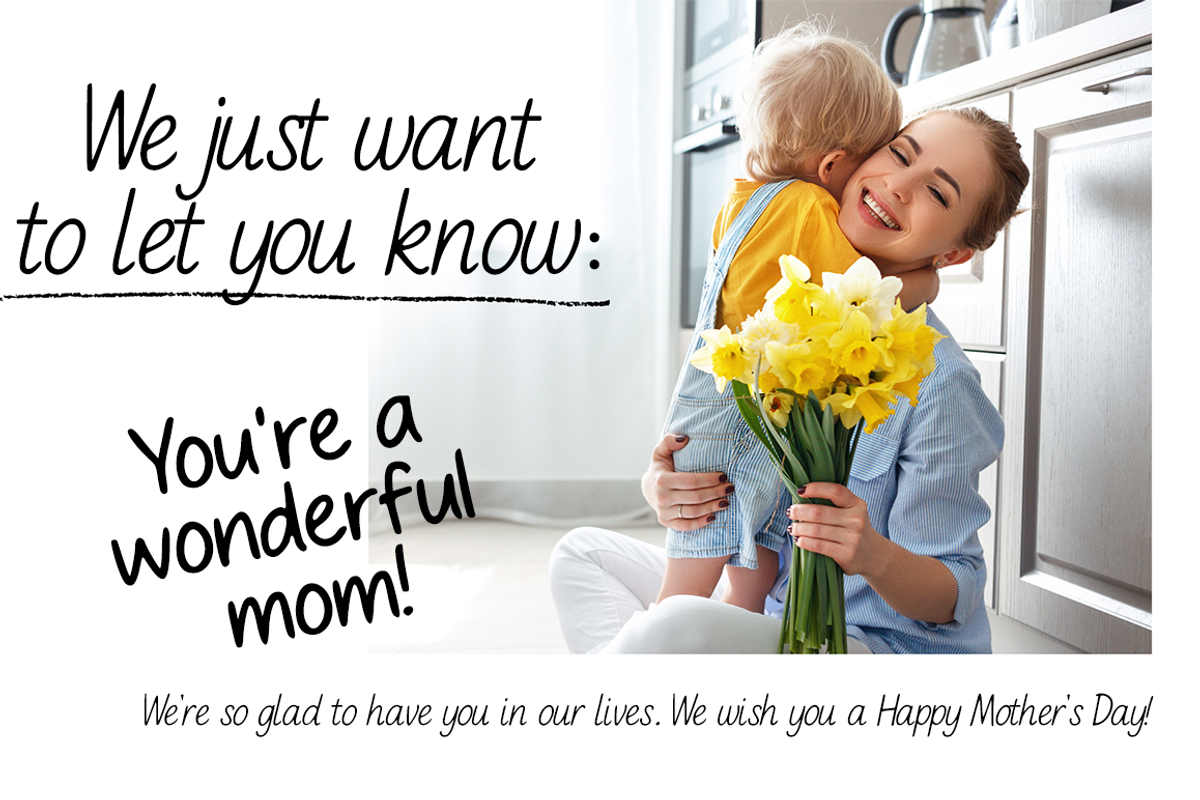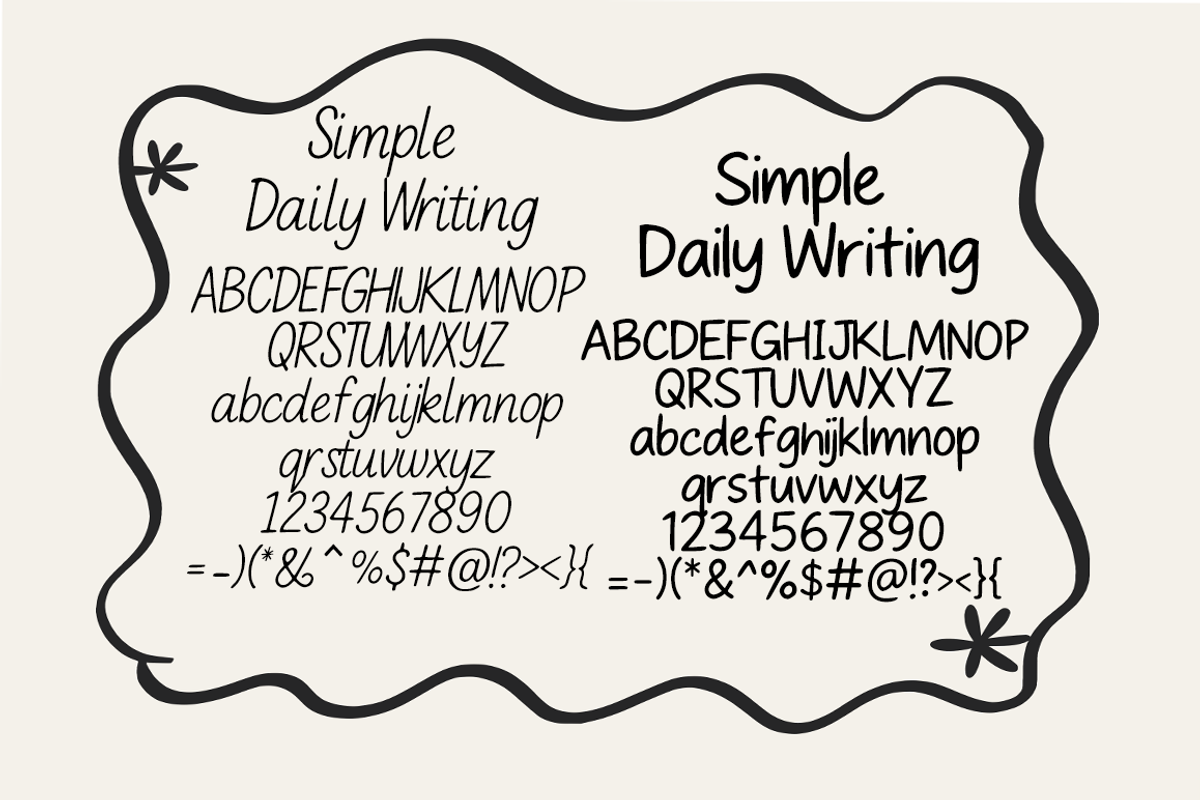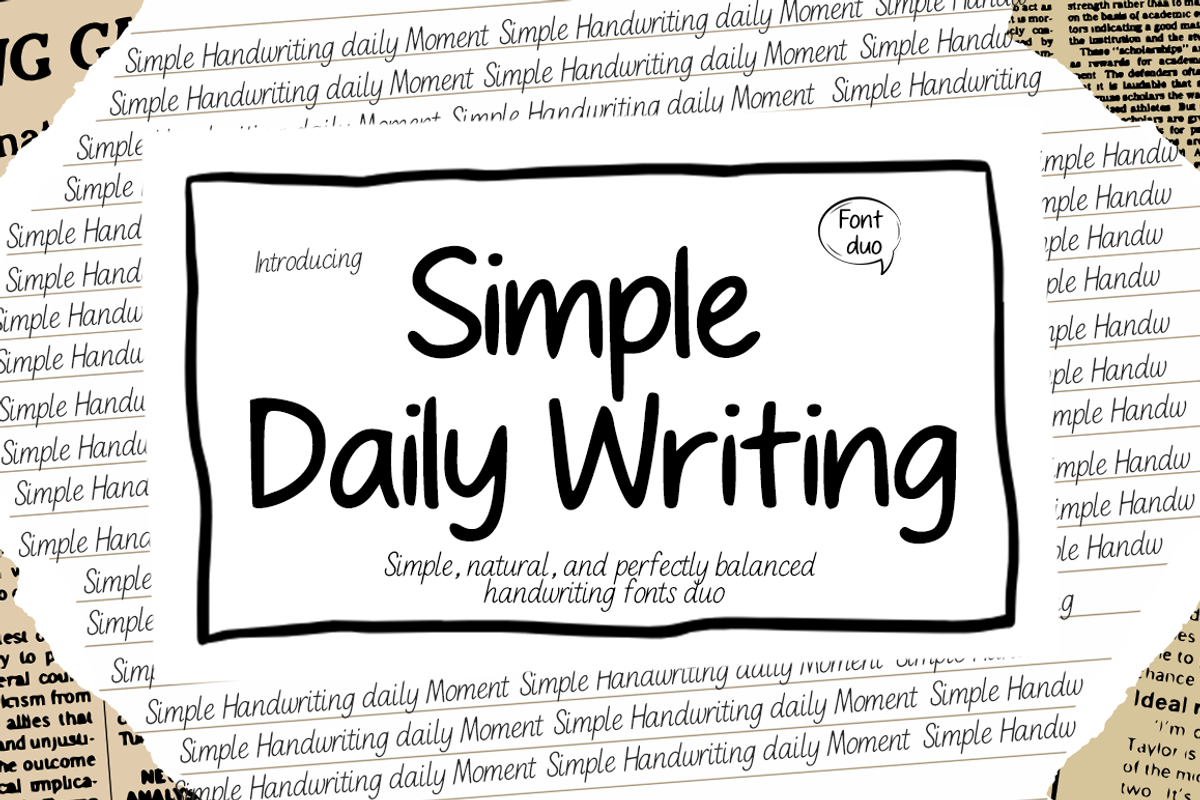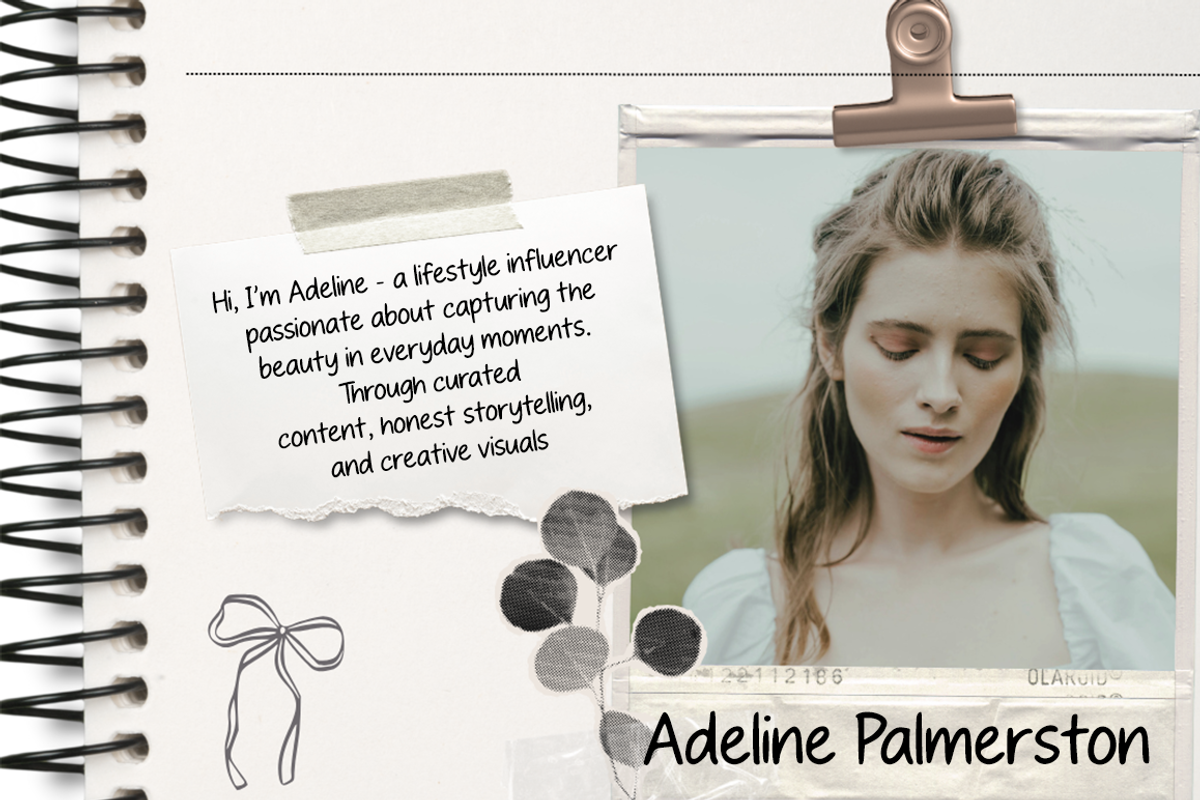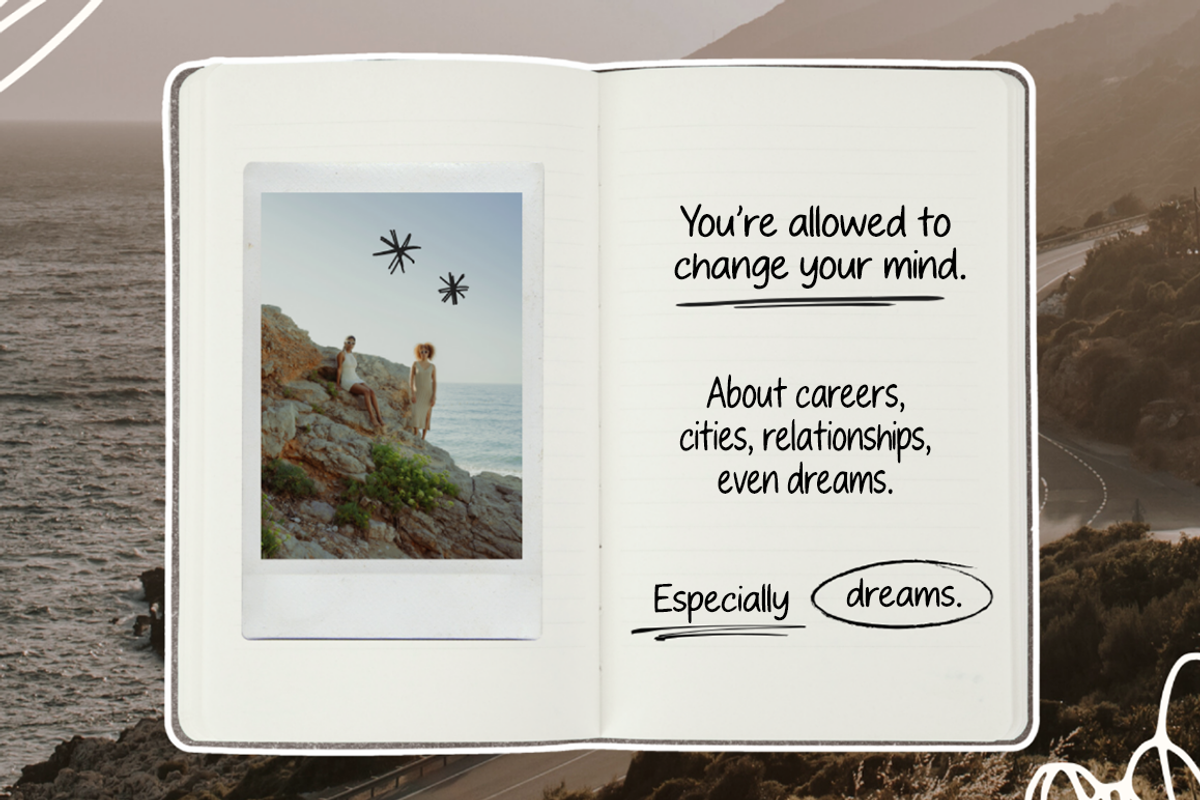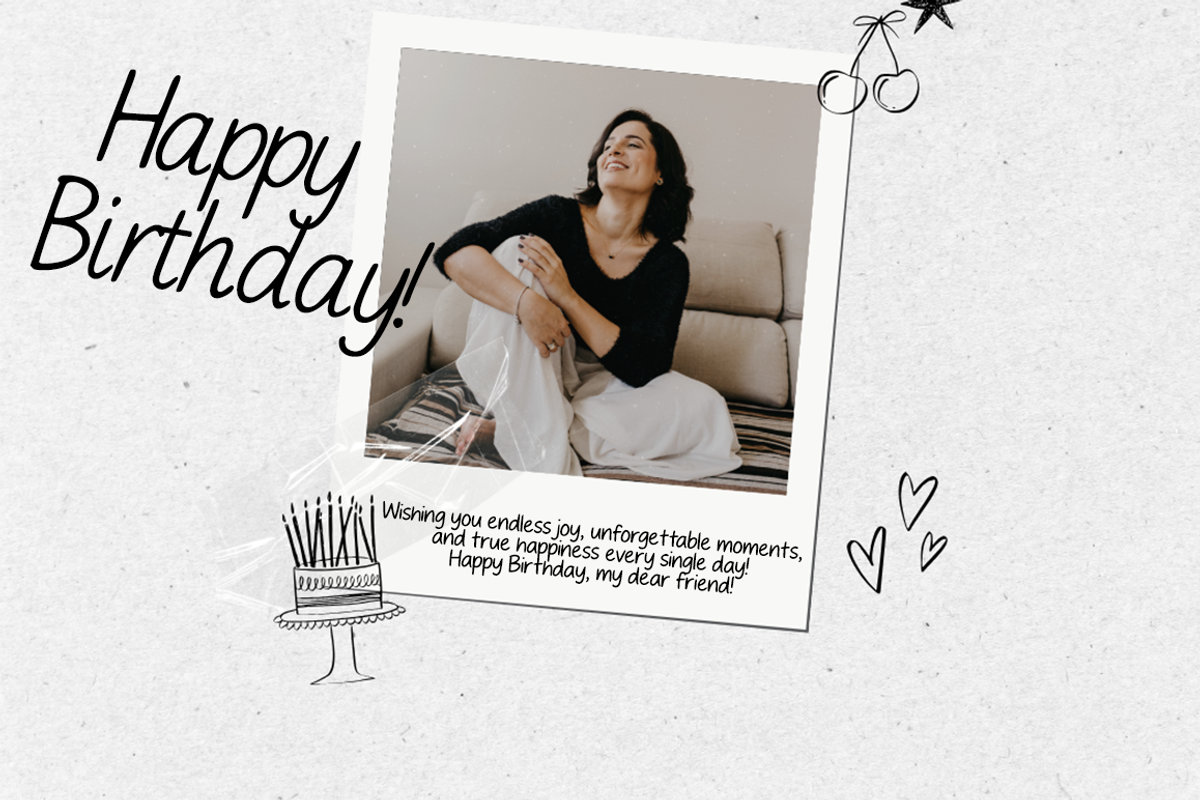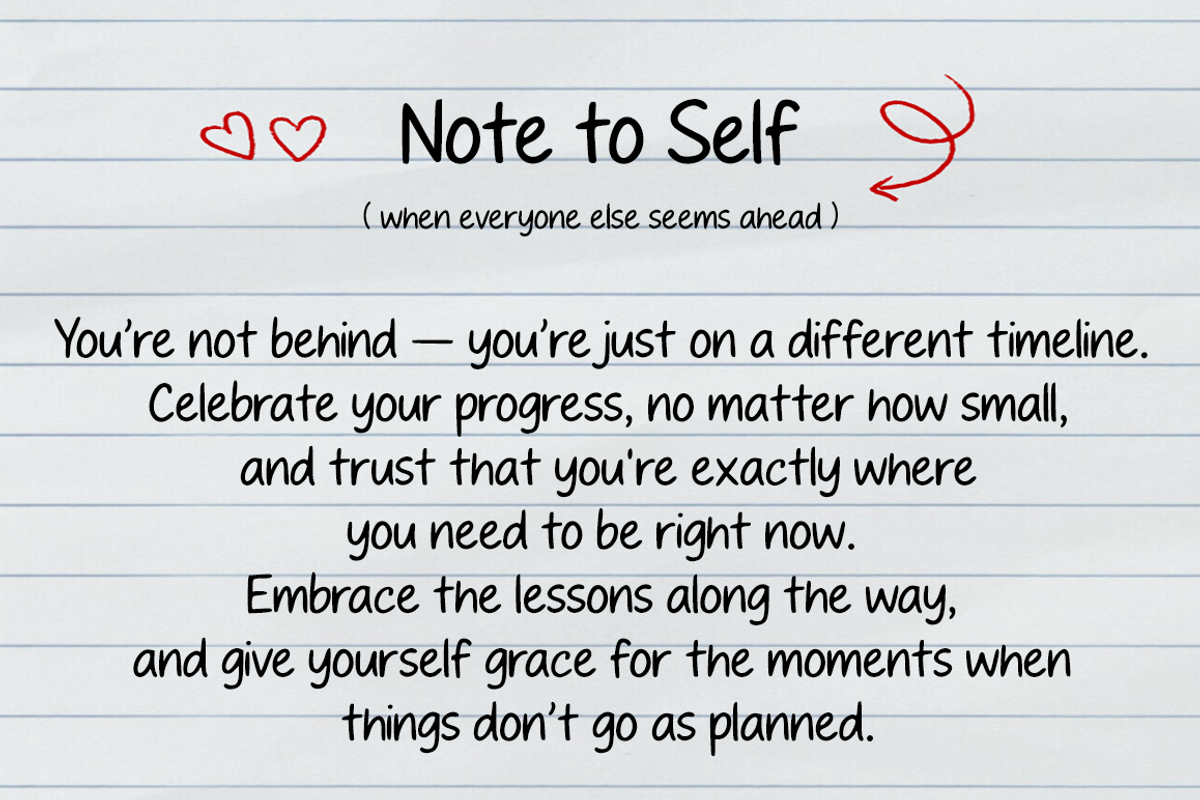
Simple Daily Writing
Simple Daily Writing is a smooth and natural handwriting font duo designed to bring a touch of ease and warmth to your design projects. It features two perfectly matched styles — Regular and Italic — that work beautifully together for any creative purpose.
This font captures the feeling of everyday handwriting, keeping each stroke clean, balanced, and highly readable. It’s ideal for projects that need a friendly, relaxed, and modern handwritten look.